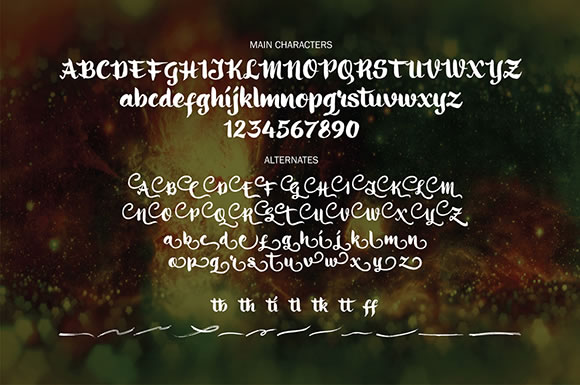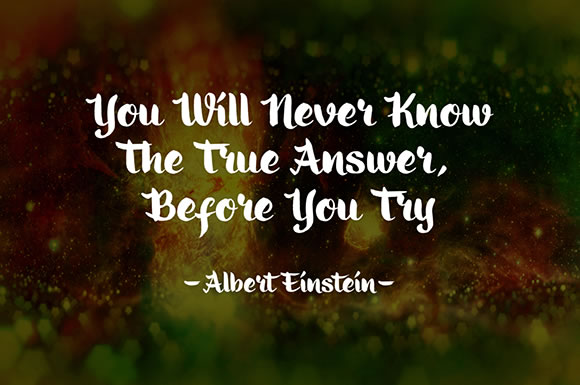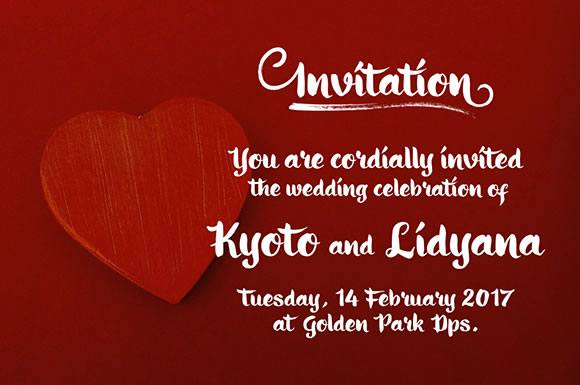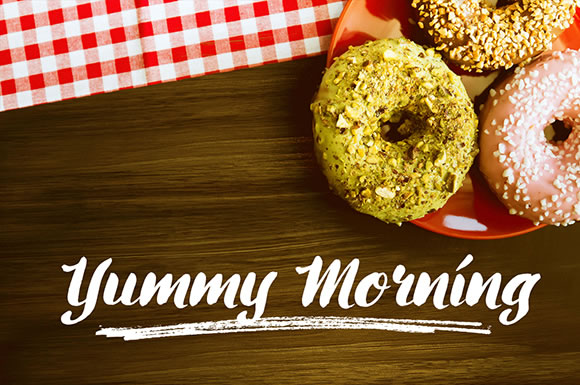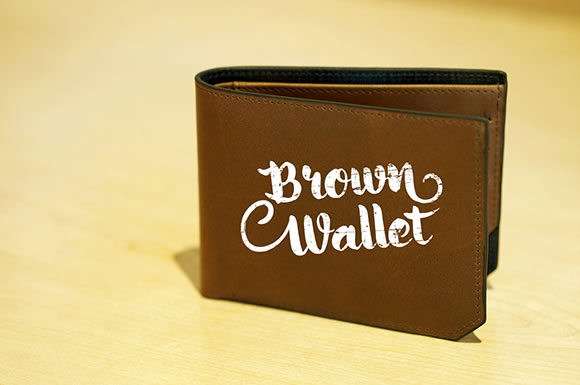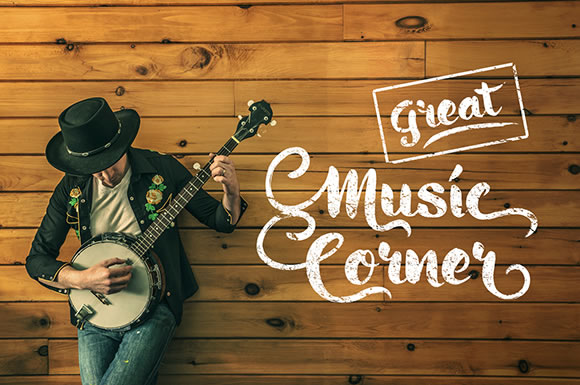
Introduction to Ringotube Font
As a designer, there’s nothing quite like the thrill of bringing a creative project to life. Whether you’re crafting a wedding invitation, designing a product label, or creating a social media campaign, the right font can make all the difference. For those seeking a high-quality, handwritten script font that exudes personality and sophistication, the search is over – welcome to the world of Ringotube Font.
With its natural, brush-like strokes and effortless charm, Ringotube Font is the perfect design resource for any project that demands a personal yet professional touch. From elegant packaging to heartfelt greeting cards, this versatile font is sure to leave a lasting impression. And the best part? You can download Ringotube Font for free, making it an accessible and valuable addition to any designer’s toolkit, especially with its transparent background allowing for seamless design integration.
Key Features of Ringotube Font
- Unique, hand-drawn style with a transparent background, perfect for adding a personal touch to designs.
- Designed to be highly versatile, suitable for use in a variety of creative projects, including logos, branding, and graphics.
Honest Review: Ringotube Font
I recently stumbled upon the Ringotube Font, and I must say, it’s been a game-changer for my design projects. This font is a fantastic resource for any creative project, offering a unique blend of modernity and sophistication.
- ✨ High quality and crisp typography, perfect for professional designs
- ✨ Transparent background option, allowing for seamless integration into various design elements
- ⚠️ Limited font styles and variations, which might not be ideal for projects requiring a diverse range of fonts
- ⚠️ Some users may find the font’s unique style a bit too bold or overpowering, depending on the design context
Overall, I’m impressed with the Ringotube Font’s performance and versatility. While it may not be perfect for every design scenario, it’s a solid choice for projects requiring a high-quality, modern font. If you’re looking for a reliable design resource, the Ringotube Font is definitely worth considering.
The Ringotube Font is a high-quality design resource that offers a unique and creative way to enhance your projects. With its transparent background, this font is perfect for adding a touch of elegance to your designs.
Tips for Getting the Most Out of Ringotube Font
To get the most out of the Ringotube Font, use it in combination with other design elements, such as graphics and images. Experiment with different font sizes, colors, and styles to create a unique look that suits your design project.
The Ringotube Font is perfect for a variety of design projects, including:
Business cards and branding materials
Web design and e-commerce sites